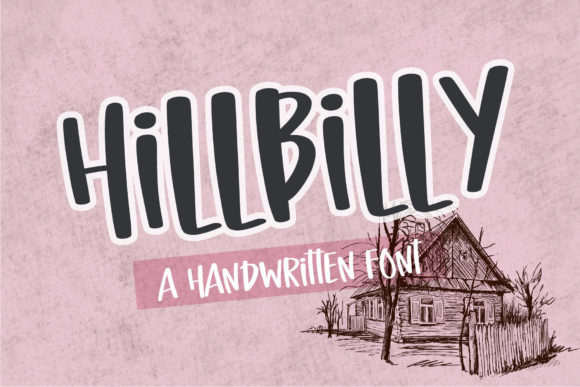
Introducing Hillbilly Font, the ultimate choice for all your Cricut projects! Created by BitongType, this script font is more than just a typographic masterpiece - it's a powerful tool that will elevate your designs to new heights.
With its cool, friendly, and informal handwritten style, Hillbilly Font brings a touch of authenticity to your creations. Whether you're crafting chalkboard quotes, designing teaching materials, or simply adding a personal touch to your artwork, this font is your go-to solution.
Why settle for ordinary when you can have extraordinary? Hillbilly Font stands out from the crowd, making your designs captivating and eye-catching. Its mesmerizing curves and strokes will effortlessly draw attention, leaving a lasting impression on anyone who lays eyes on your masterpieces.
Unlock your creativity and let Hillbilly Font inspire you. Its versatility knows no bounds - from playful and whimsical designs to elegant and sophisticated projects, this font adapts effortlessly to any style or theme. Say goodbye to monotony and hello to boundless possibilities!
But wait, there's more! Hillbilly Font isn't just visually stunning; it's also packed with personality. Each letter exudes warmth and charm, making your designs feel like they were crafted by hand. Embrace the personal and realistic feel that this font brings, and watch as your creations come to life before your very eyes.